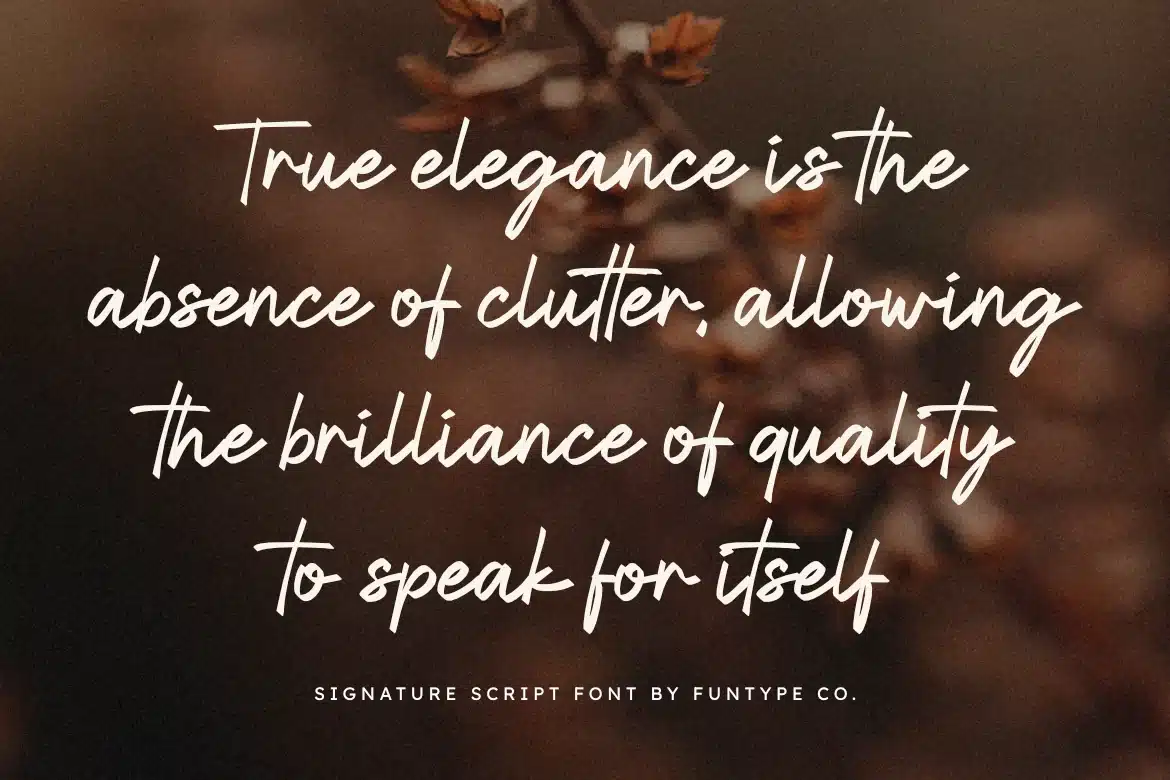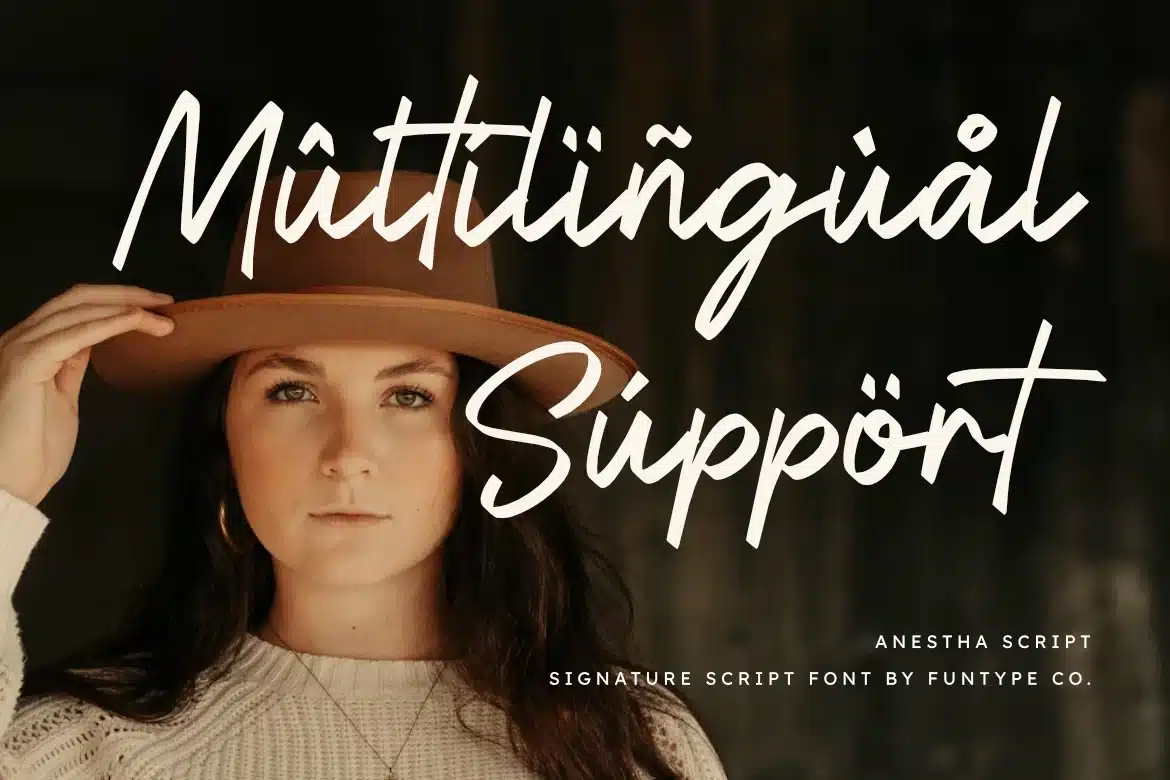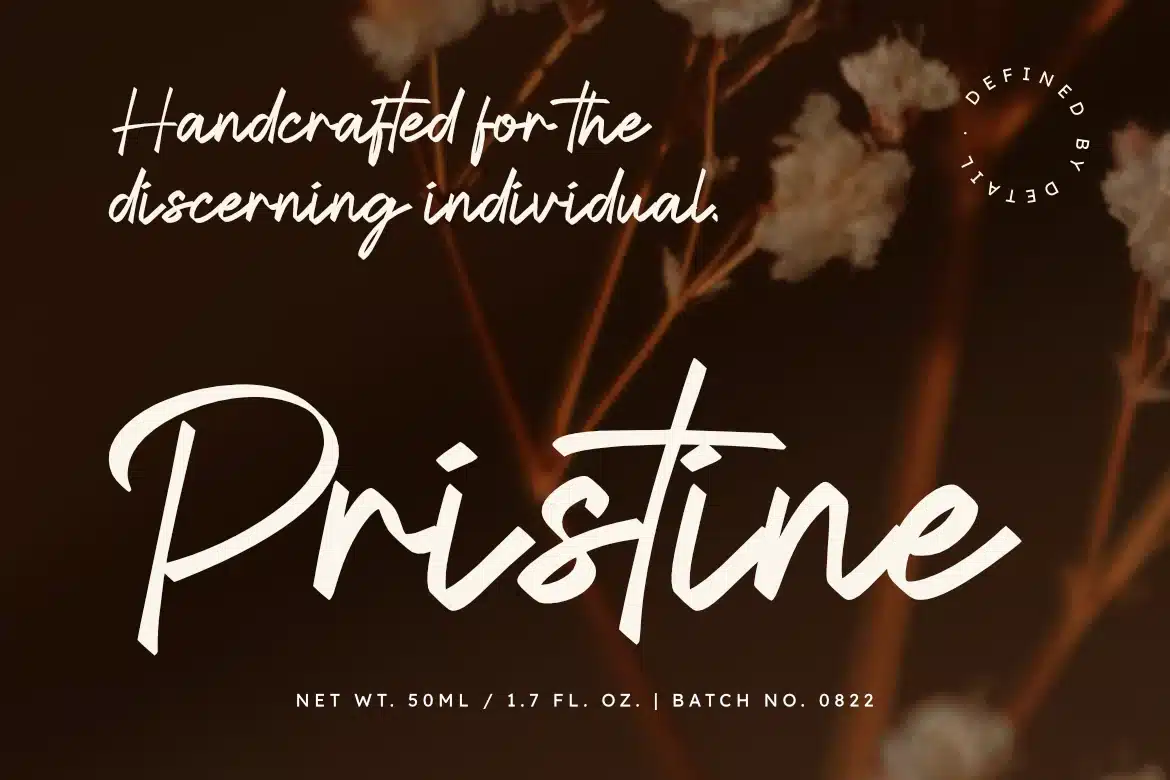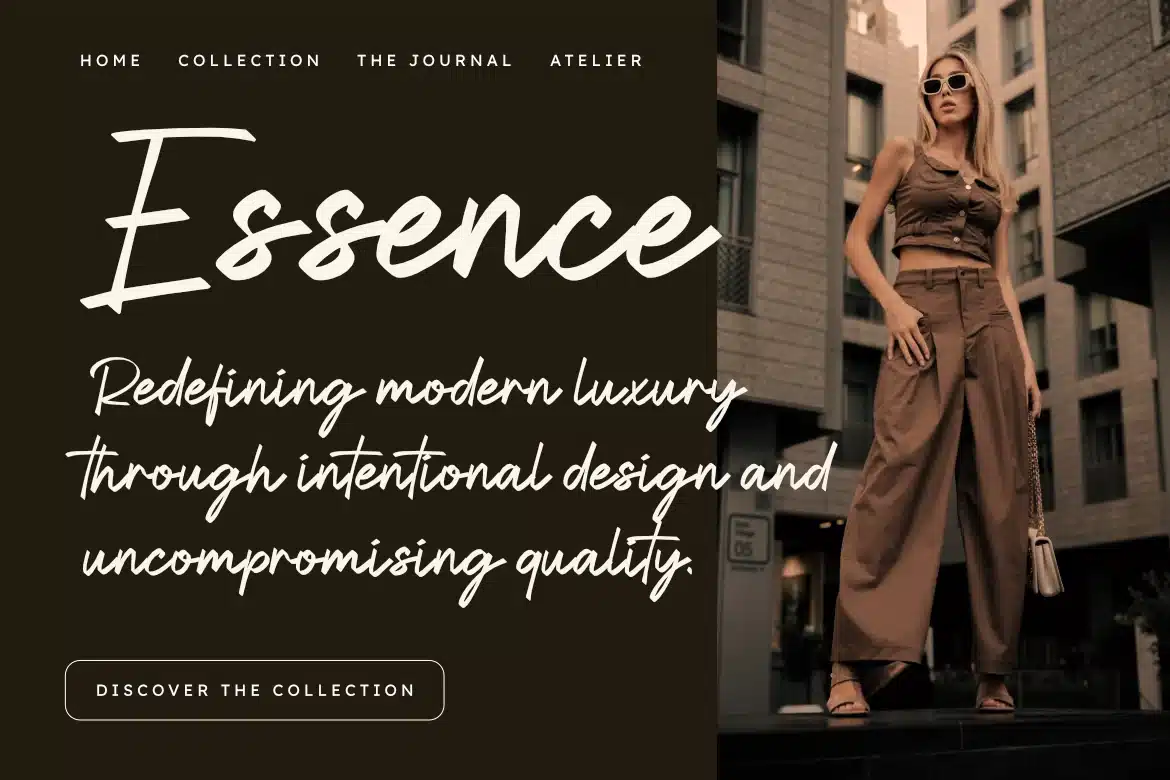
Anestha Script – Bold Signature Font
Anestha Script is a powerful and expressive handwritten font, designed to give your creative projects a touch of authentic confidence. With its bold strokes and natural flow, Anestha captures the essence of a modern signature, making it a standout choice for brands that want to convey personality and style.
This font offers a perfect balance between rugged texture and sophisticated design. Whether you are working on high-impact branding, stylish social media content, or professional photography watermarks, Anestha Script provides the versatility needed to create a lasting impression.
Main Features:
- Authentic Signature Style: Bold and fluid for a natural look.
- Modern & Impactful: Designed for superior visibility in display use.
- Multilingual Support: Ready for global design projects.
Best Applications:
Logos and branding, magazine headers, product packaging, wedding invitations, fashion labels, quotes, and social media graphics.